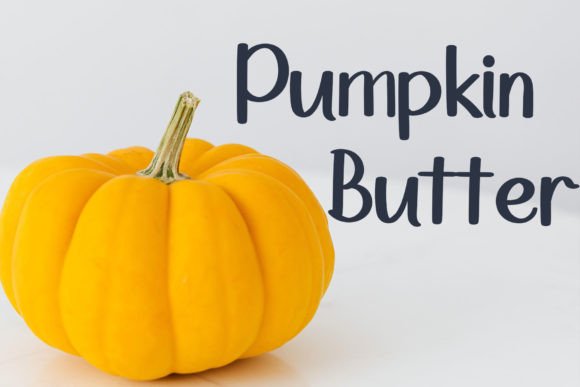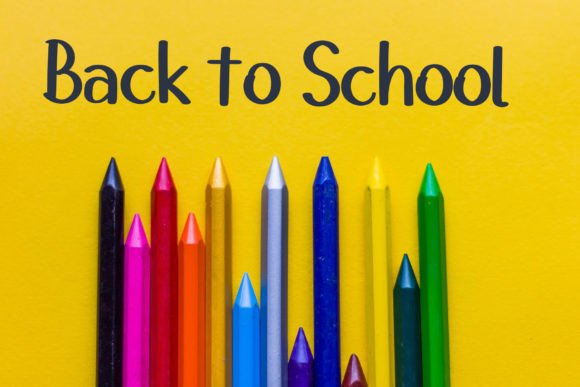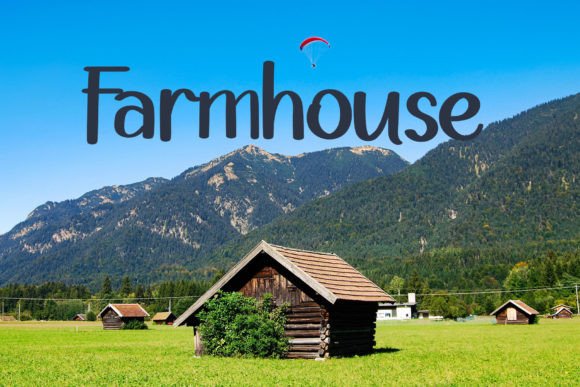
Alice in Wonderland Font: A Whimsical and Versatile Typeface
Alice in Wonderland Font is a classic and simple display font that has captured the hearts of designers and crafters alike. Created in a free and random style, this font is perfect for adding a touch of whimsy and playfulness to various design projects. In this article, we’ll explore the features, uses, and benefits of the Alice in Wonderland Font, and why it’s a must-have for any designer or crafter.
What is Alice in Wonderland Font?
Alice in Wonderland Font is a display font that embodies the spirit of Lewis Carroll’s beloved classic, “Alice’s Adventures in Wonderland.” The font’s design is inspired by the playful, curious, and fantastical elements of the story, making it an ideal choice for projects that require a sense of wonder and magic.
Key Features of Alice in Wonderland Font
- Free and Random Style: The font’s free and random style gives it a unique and organic feel, making it perfect for designs that require a touch of whimsy and personality.
- Classic and Simple Design: Despite its playful nature, the font’s classic and simple design ensures that it remains legible and versatile, making it suitable for a wide range of applications.
- High-Quality Typography: The font is designed with high-quality typography in mind, ensuring that it looks great in both digital and print formats.
Uses of Alice in Wonderland Font
Alice in Wonderland Font is a versatile typeface that can be used in a variety of design projects, including:
- Logotypes and Branding: The font’s unique and playful design makes it perfect for creating memorable logotypes and brand identities.
- Headlines and Titles: The font’s bold and eye-catching design makes it ideal for headlines, titles, and other display text.
- Corporate Identity: The font’s classic and simple design ensures that it can be used in corporate identity projects, such as business cards, letterheads, and brochures.
- Apparel Industry: The font’s playful and whimsical design makes it perfect for use in the apparel industry, such as on t-shirts, hoodies, and other clothing items.
- Posters and Flyers: The font’s bold and eye-catching design makes it ideal for posters, flyers, and other promotional materials.
- Music, Movies, and Games: The font’s unique and playful design makes it perfect for use in music, movies, and games, such as on album covers, movie posters, and game packaging.
- Magazines, Books, and Comics: The font’s classic and simple design ensures that it can be used in publications, such as magazines, books, and comics.
- Cartoon and YouTube Content: The font’s playful and whimsical design makes it perfect for use in cartoon and YouTube content, such as on video titles, thumbnails, and animations.
- Instagram and Social Media: The font’s bold and eye-catching design makes it ideal for use on Instagram and other social media platforms, such as on graphics, quotes, and other visual content.
Benefits of Using Alice in Wonderland Font
There are several benefits to using Alice in Wonderland Font in your design projects, including:
- Unique and Playful Design: The font’s unique and playful design ensures that your designs stand out from the crowd and capture the attention of your audience.
- Versatility: The font’s versatility ensures that it can be used in a wide range of design projects, from logotypes and branding to posters and social media content.
- High-Quality Typography: The font’s high-quality typography ensures that it looks great in both digital and print formats, making it perfect for use in a variety of applications.
- Easy to Read: Despite its playful nature, the font remains easy to read, making it perfect for use in designs that require a touch of whimsy and personality.
| Author | asmunin78 |
In conclusion, Alice in Wonderland Font is a versatile and whimsical typeface that is perfect for designers and crafters looking to add a touch of magic and wonder to their design projects. With its unique and playful design, high-quality typography, and versatility, this font is sure to become a staple in any designer’s toolkit. Whether you’re working on a logotype, headline, or social media content, Alice in Wonderland Font is a great choice for any design project that requires a sense of wonder and playfulness.